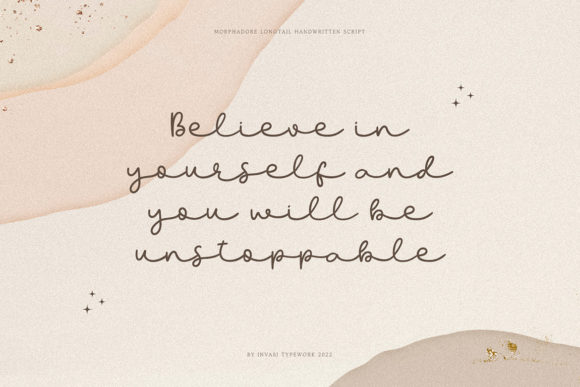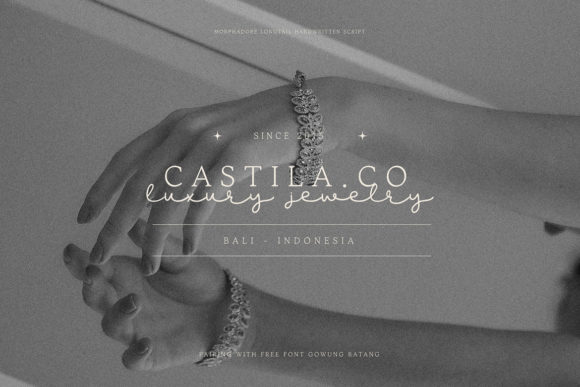
Morphadore Font
db-ku.com - Script & Handwritten -- Morphadore brings elegance and luxury by offering a longtail monoline handwritten style. With Morphadore you can create gorgeous logos, greeting cards, illustrations, quotes, charming branding, book covers, packaging, and much more. This font is PUA encoded which means you can access all of the glyphs and swashes with ease.